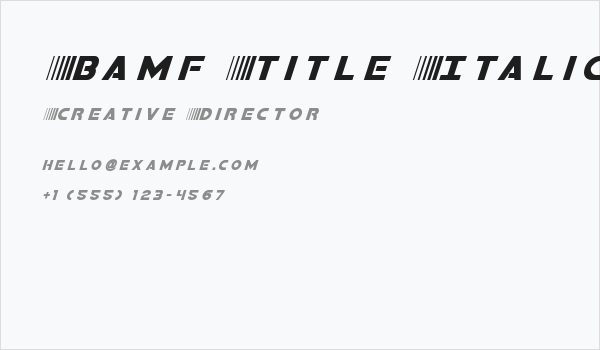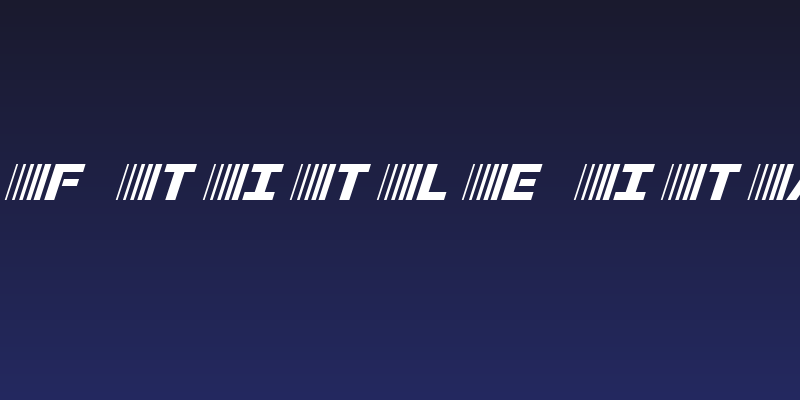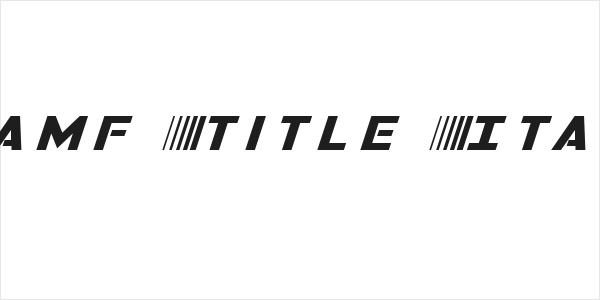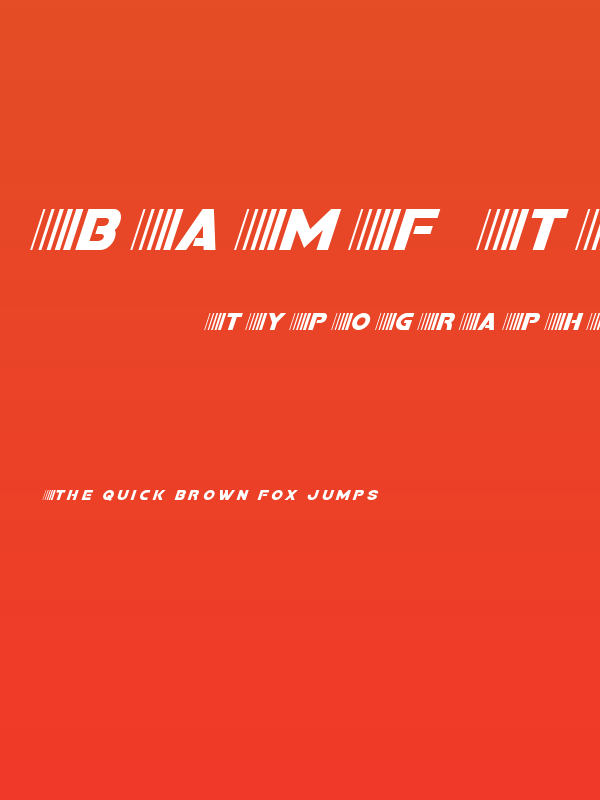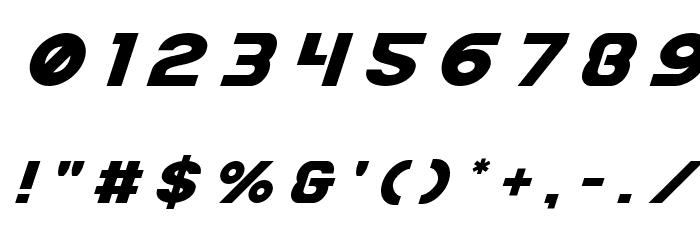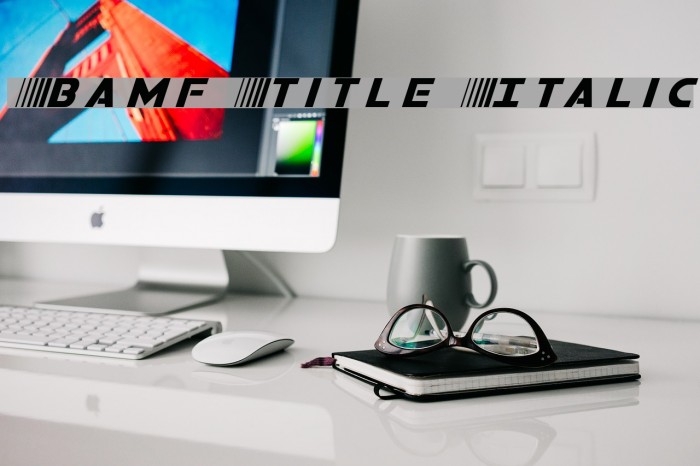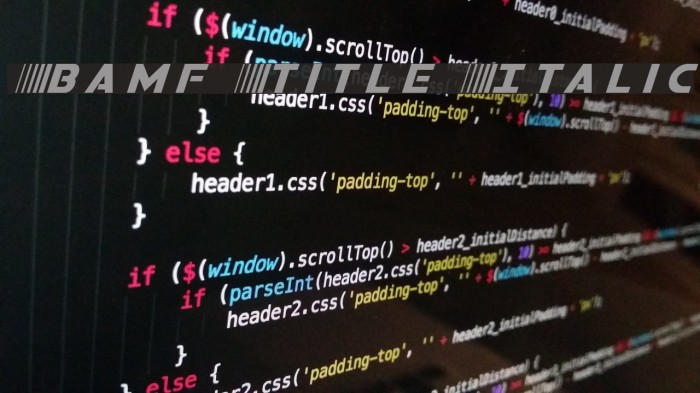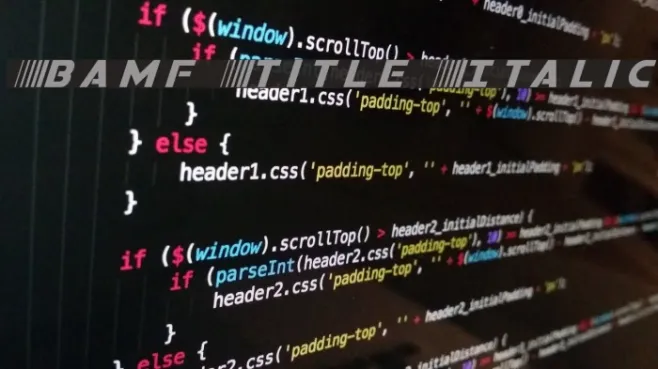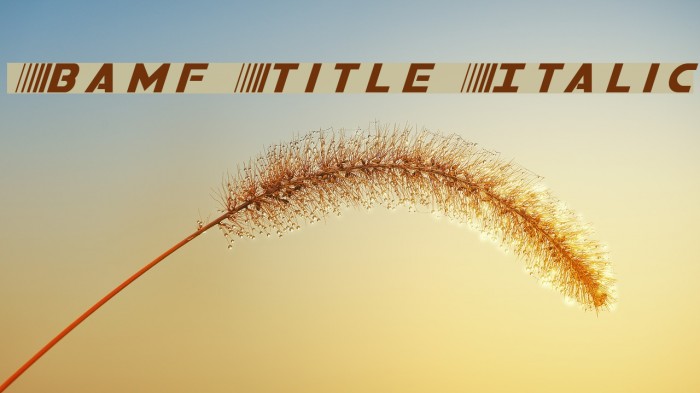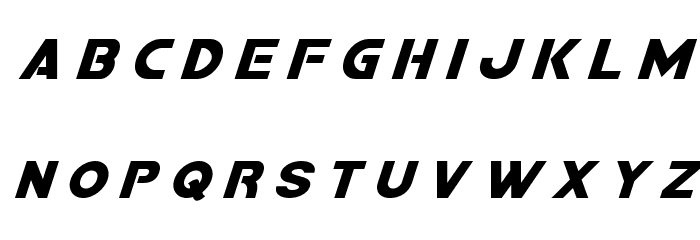
Bamf Title Italic Font
Bamf Title Italic Description
This font features a bold and dynamic style with a strong italic slant, giving it a sense of motion and energy. The uppercase letters are prominent and impactful, while the lowercase letters maintain a consistent design that complements the overall aesthetic. The numbers are equally bold, ensuring readability and uniformity across different uses. Special characters are designed with the same attention to detail, making them stand out while remaining cohesive with the rest of the font. The font's unique style is characterized by its thick strokes and angular cuts, which contribute to its modern and assertive appearance.
| Proposed Projects | Ideal for sports branding, dynamic posters, action-themed graphics, and modern advertising campaigns. |